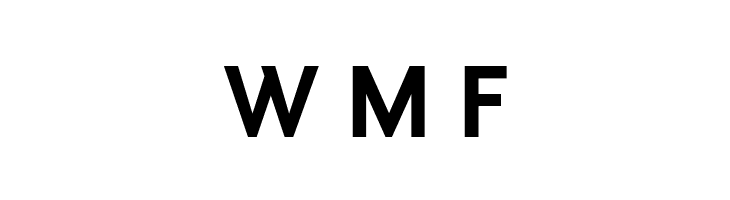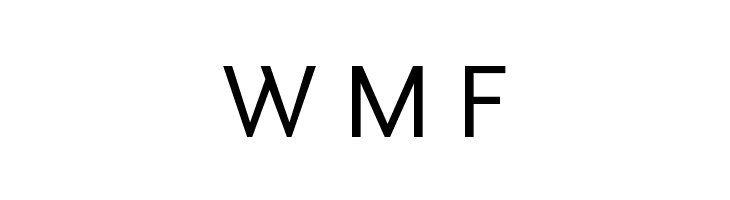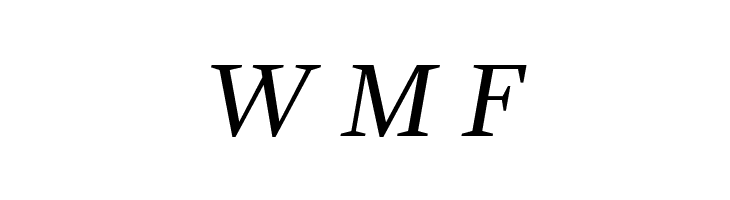
GandhiSans-Bold Font
A bold, modern sans-serif font with clean lines and strong visual impact.
GandhiSerif-Regular Font
A classic serif typeface with elegant proportions and refined serifs.
GandhiSerif-Bold Font
A bold serif font with strong strokes and classic elegance.
GandhiSans-Regular Font
A clean, modern sans-serif font with balanced proportions and excellent readability.
GandhiSerif-BoldItalic Font
A bold, italic serif font with classic elegance and strong visibility.
GandhiSerif-Italic Font
An elegant serif font with a classic italic style and refined serifs.
GandhiSans-Italic Font
A clean, modern sans-serif font with a subtle italic slant.
GandhiSans-BoldItalic Font
A bold, italicized modern sans-serif font with consistent stroke thickness.